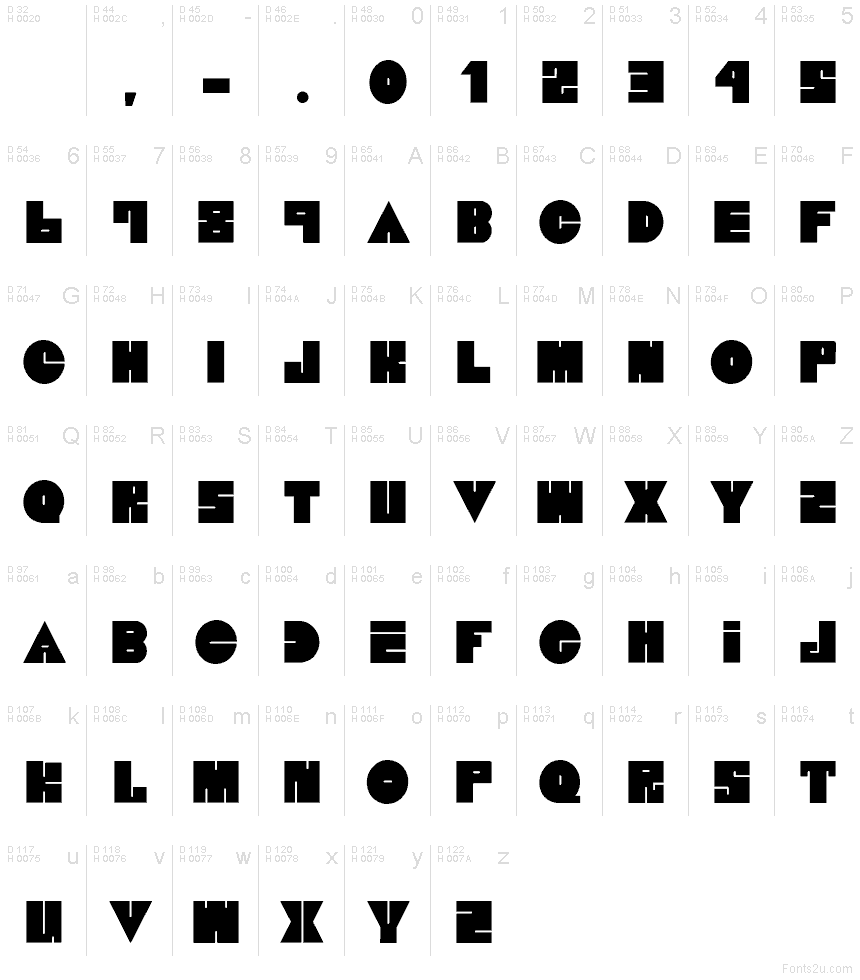
Kairo DEMO Regular
Kairo font by Scratch Design is a bold geometric display typeface with a striking and minimalist appearance. Its lines are clean, modern, and slightly industrial with a futuristic twist. The semi-rounded curves set against tightly formed widths emulate the hallmarks of the Nineties taxonomy, imbuing this free font with an instant retro quality.
Kairo is ideal for creating high-impact headlines and titles which appear clear with distinctive aesthetics in web, print, or video projects. Use it for websites, magazines, blogs or create appealing typographic creative assignments in posters and marketing leaflets to capture viewers’ attention at first glance.